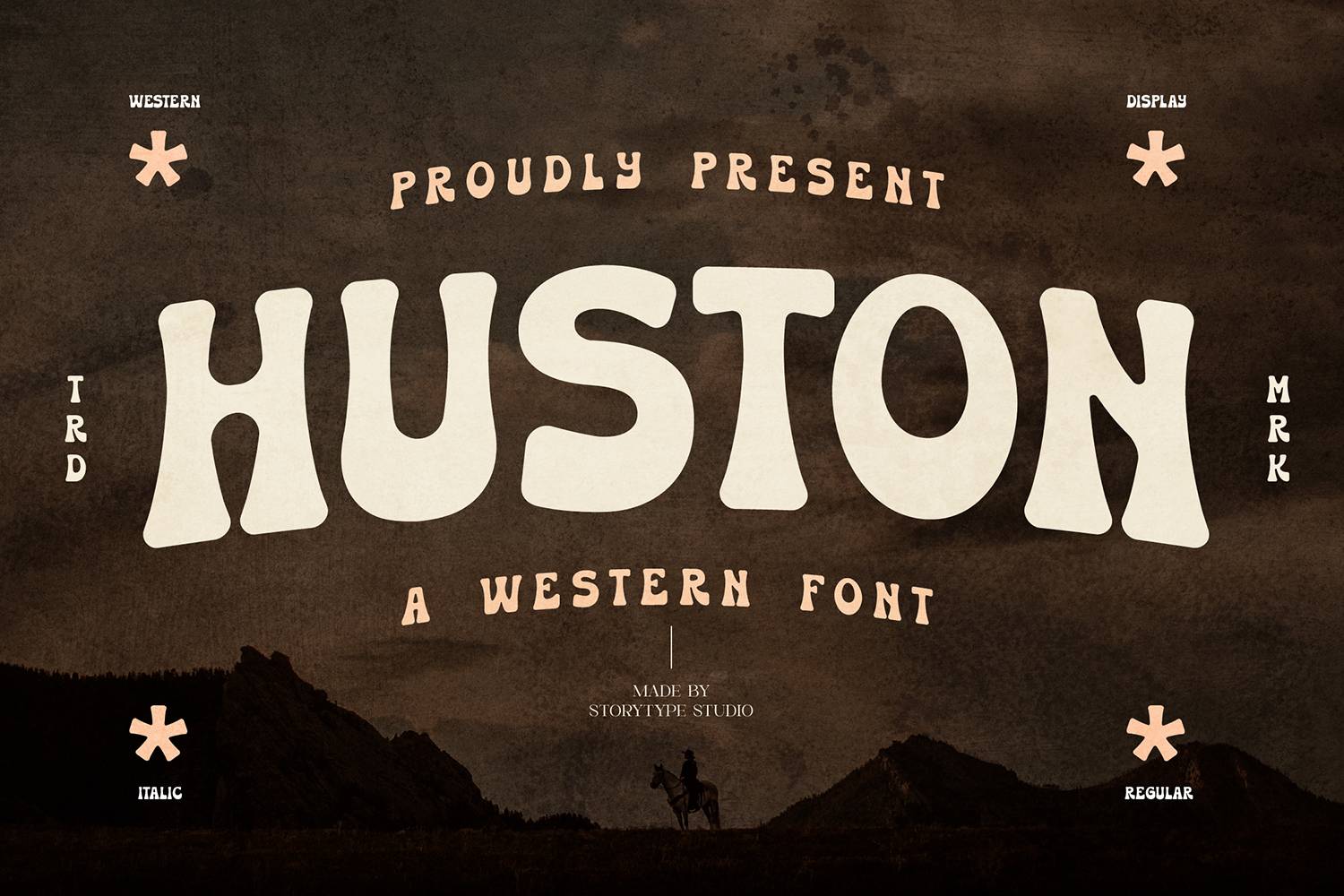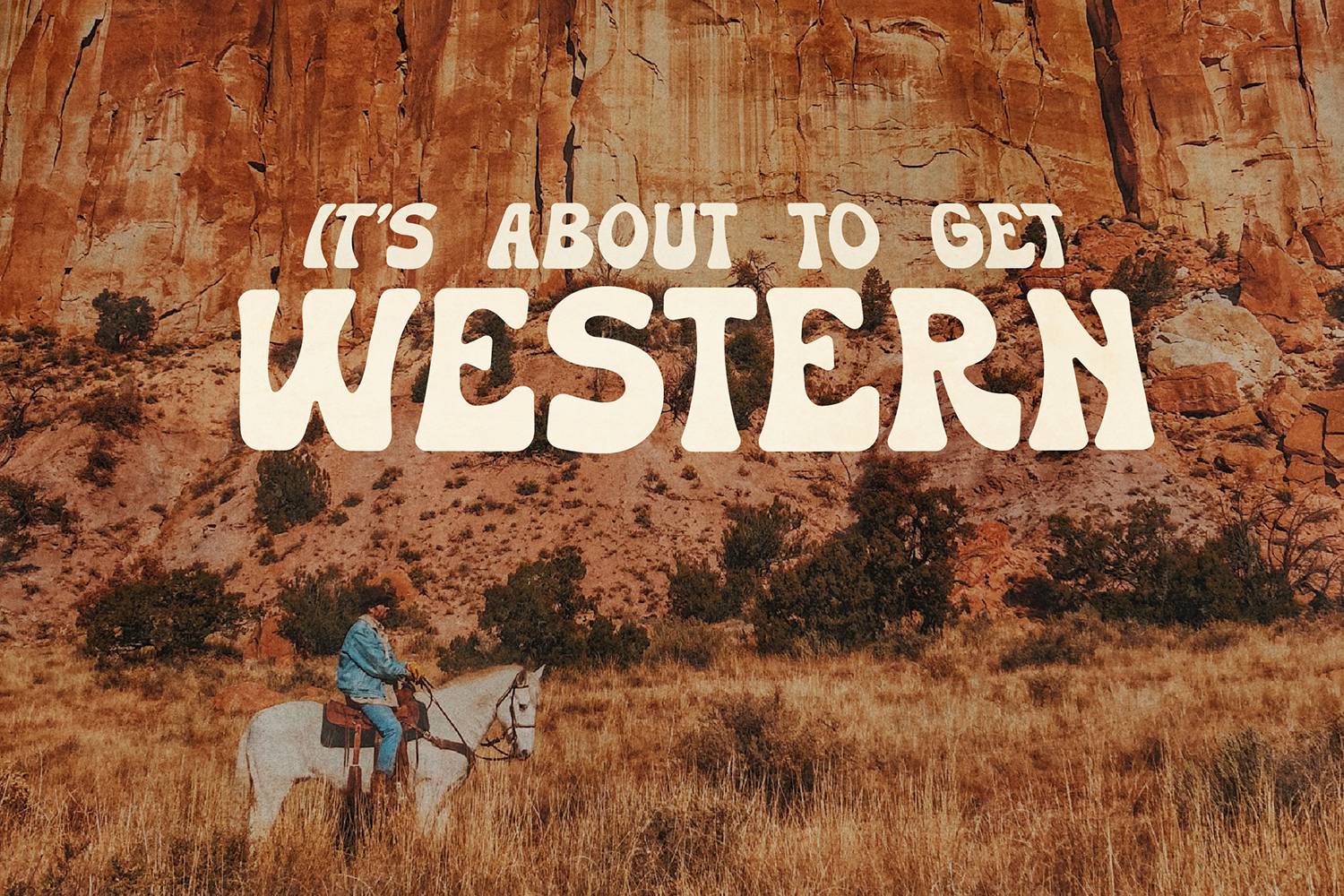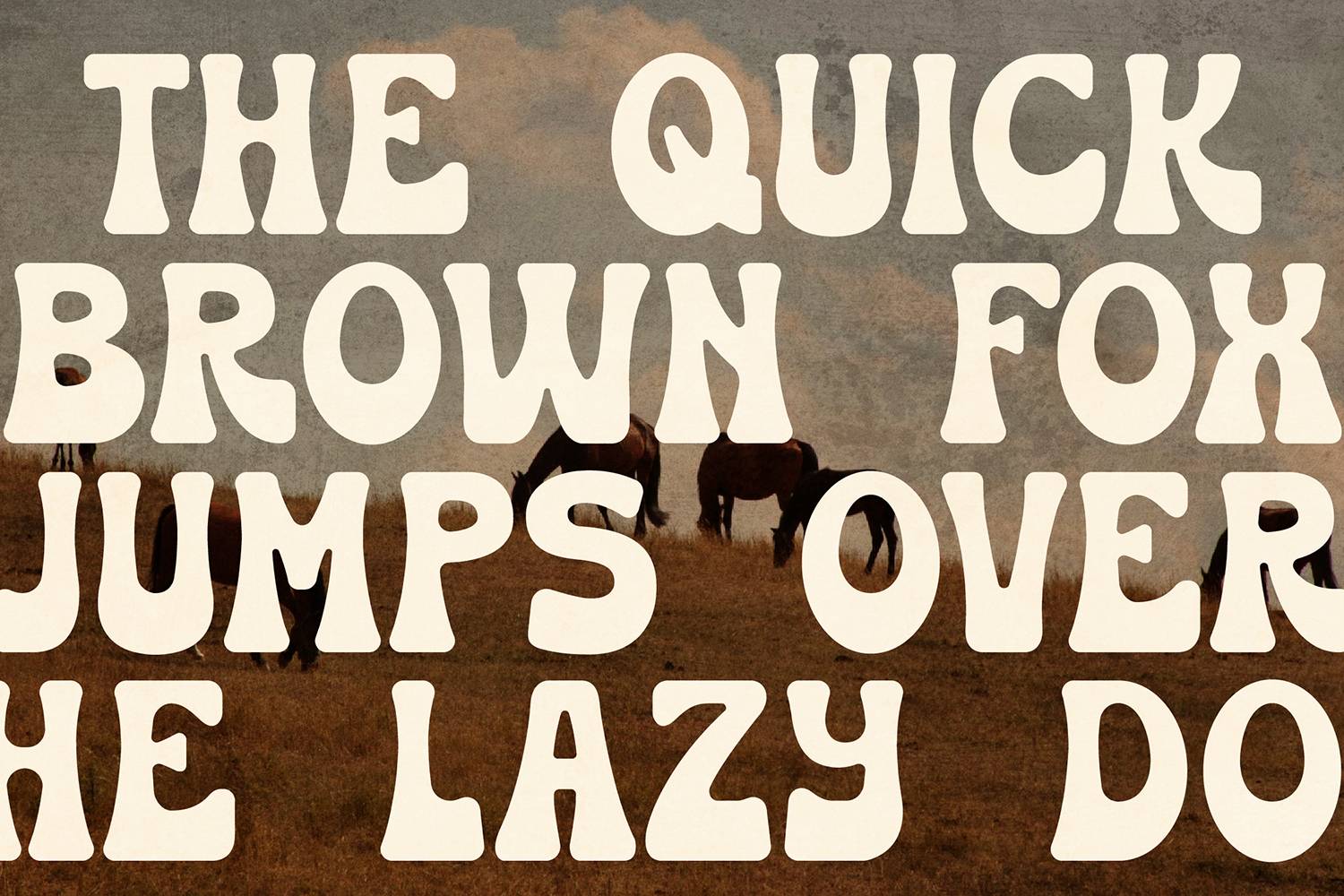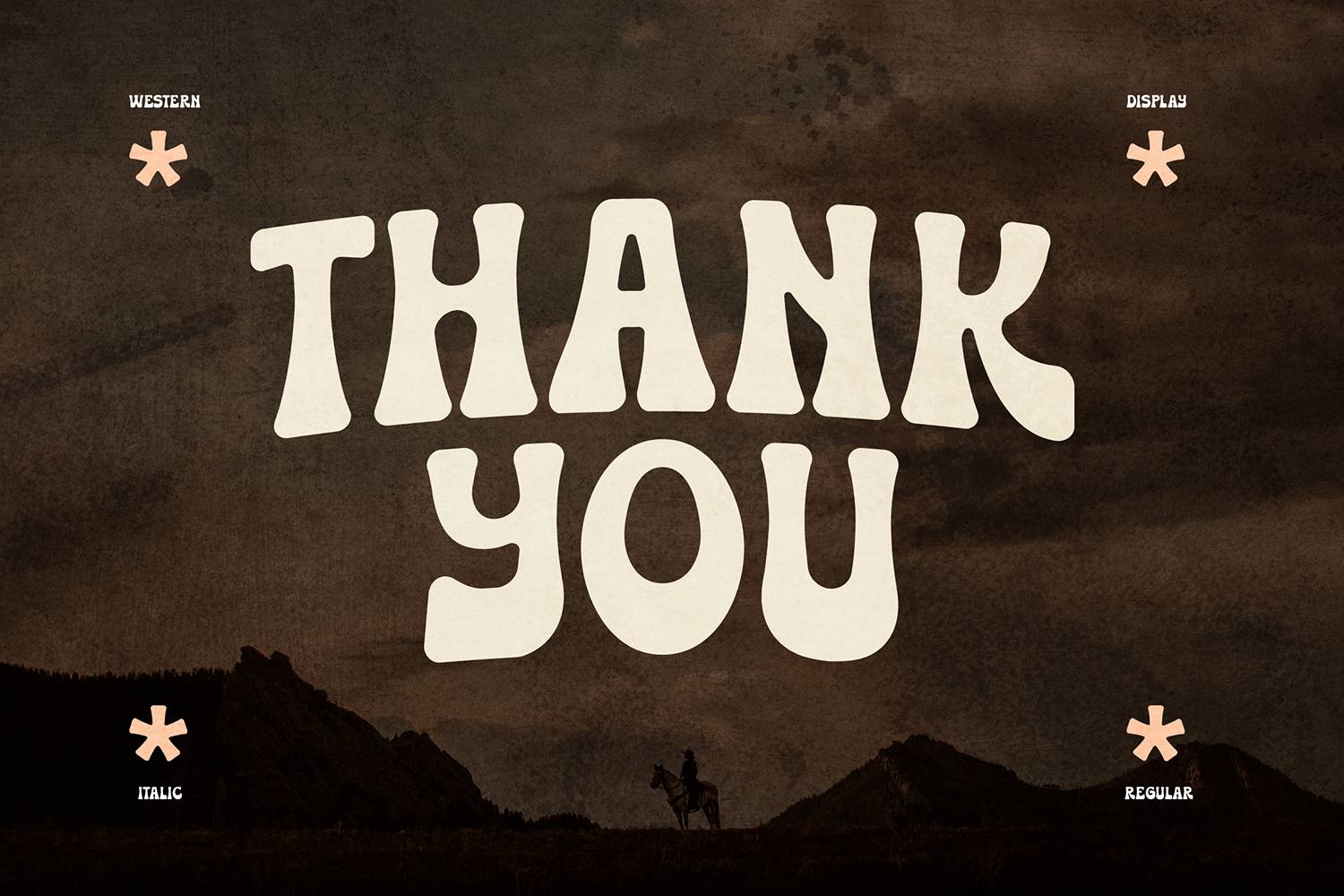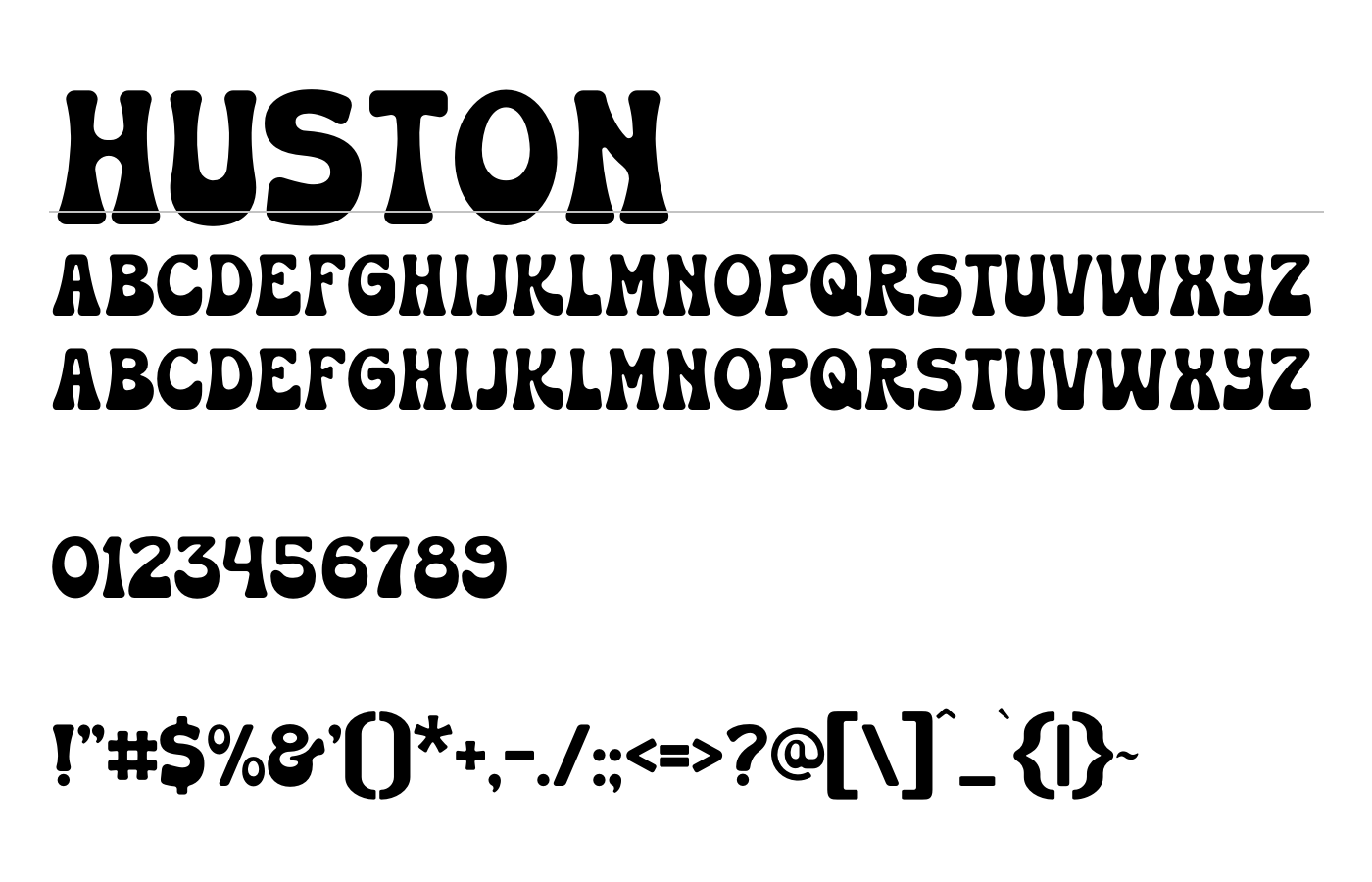
Huston is a bold, playful slab serif font with rounded edges and sturdy, chunky letterforms that give it a retro yet friendly vibe. Its wide stance and consistent stroke weight make it ideal for eye-catching headlines, logos, and branding that want to convey warmth and approachability with a touch of vintage charm. This font works well in creative and casual contexts where a strong but inviting personality is needed.
Huston Font
About Huston Font